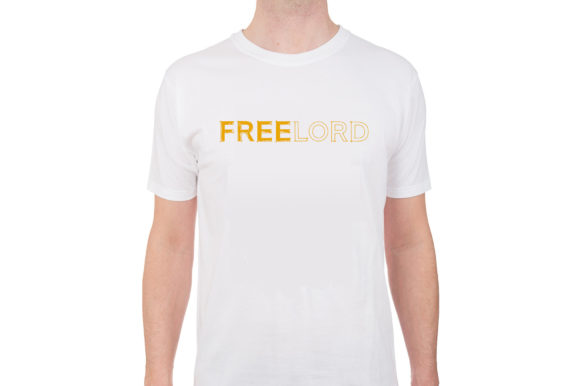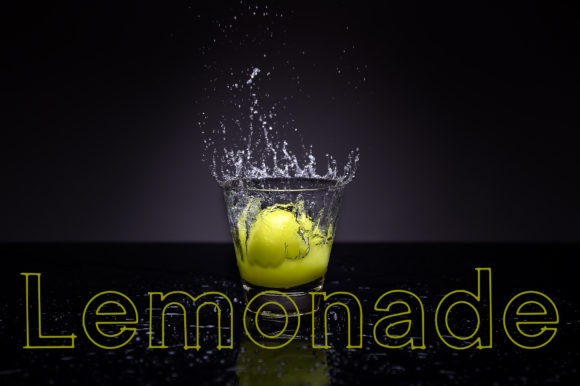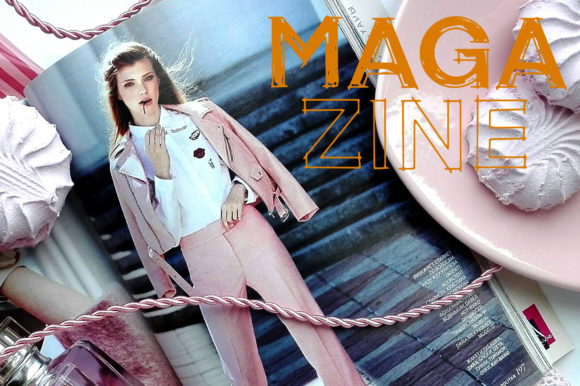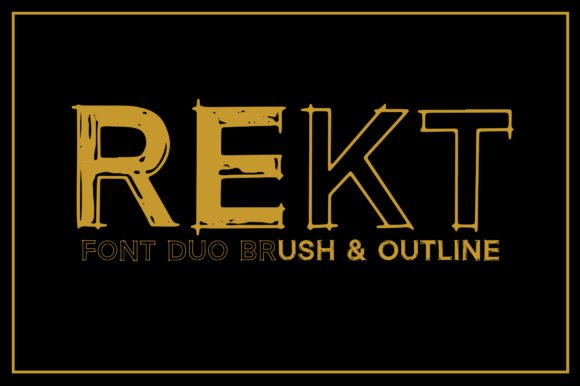
Introduction to Rekt Font
Rekt is a bold and sharp looking display font, that will truly inspire your works.
Key Features of Rekt Font
Why Choose Rekt Font?
Rekt Font offers exceptional quality and versatility, making it a valuable addition to your design toolkit. Whether you’re creating for personal projects or commercial use, Rekt Font delivers professional results.